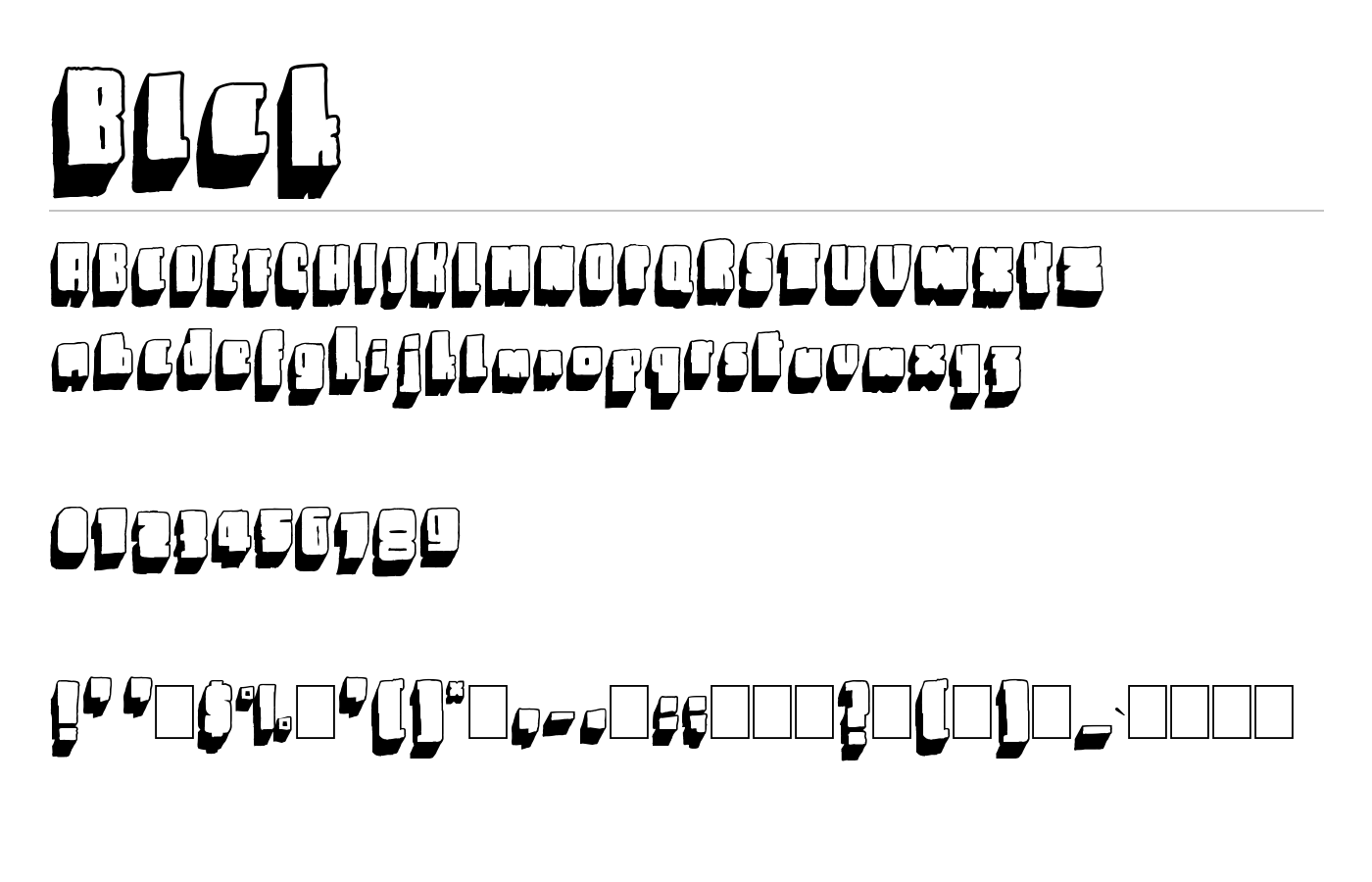
Blck Font is a bold, blocky display typeface with a playful, chunky 3D shadow effect that gives it a strong, informal character. Its irregular, hand-drawn style and heavy weight make it perfect for fun, eye-catching designs like posters, logos, and headlines where a lively, standout personality is needed. This font works best in creative or casual branding contexts where a bold and approachable vibe is desired.
Blck Font
About Blck Font